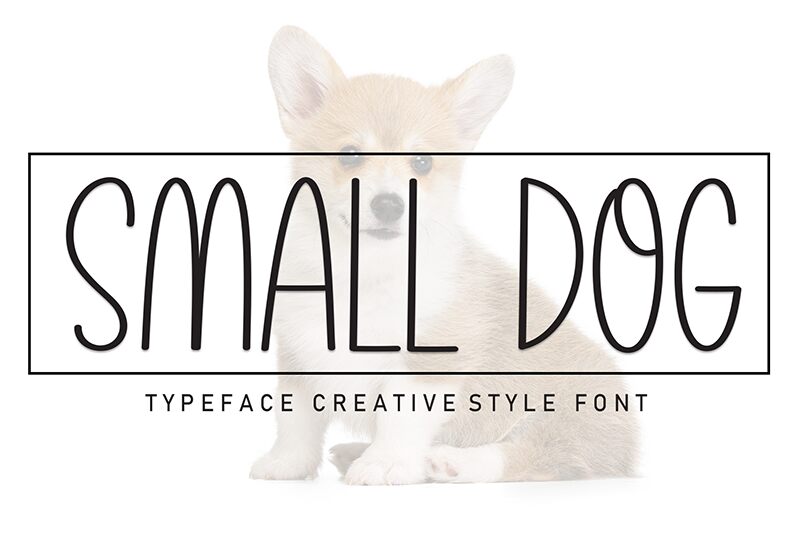
Small Dog
Small Dog font by Andi Moz is a free handwritten font with a slightly whimsical feel and a modern touch. It offers a friendly impression that many would describe as laid back and pleasant. Its casual vibe results from the hand-drawn aesthetic of the character outlines as well as the condensed yet light font weight.
Use Small Dog in whimsical book covers or casual heading designs, on attractive postcards, social media banners, posters, website headers, business cards, clothing designs or even interesting packaging layouts. Its casual vibe encourages using this font in various personal projects but especially professional work.